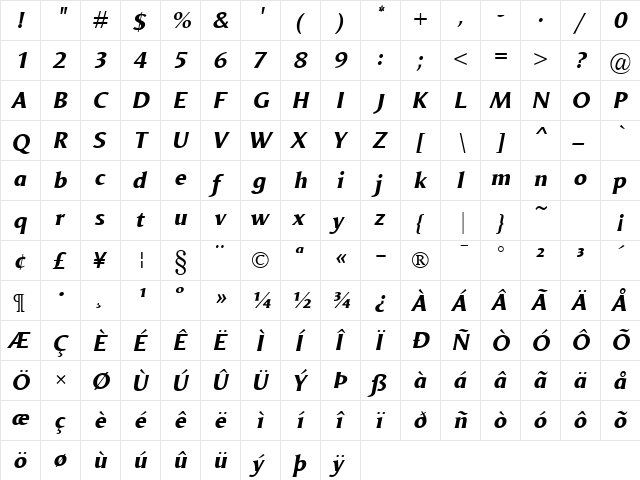
Odense XBold Italic Font Preview
Odense XBold Italic
Odense XBold Italic Font Details
Design Context for Odense XBold Typeface
Odense XBold takes a measured approach to typography — its balanced proportions and neutral character make it a reliable workhorse for both digital and print work. The dynamic lean of this cut emphasises speed and emphasis in any layout. Its bold stroke weight gives it real presence on the page.